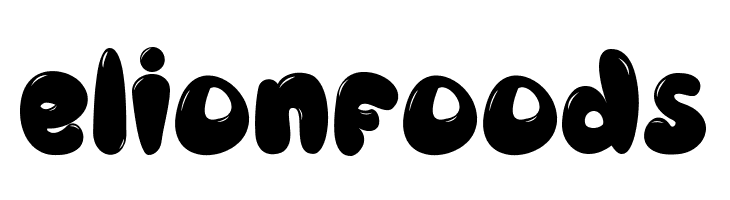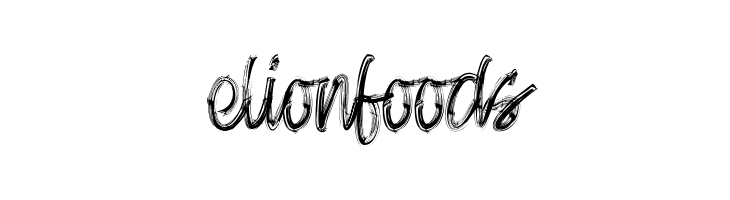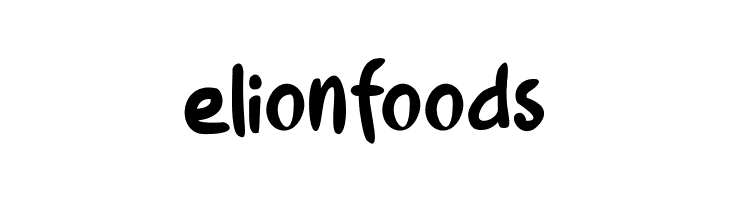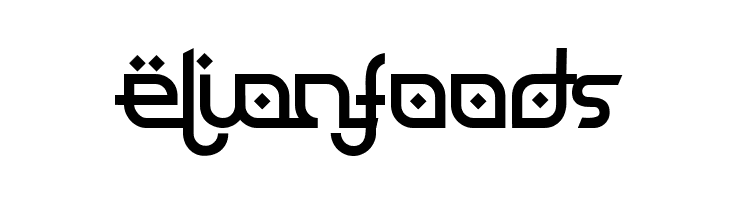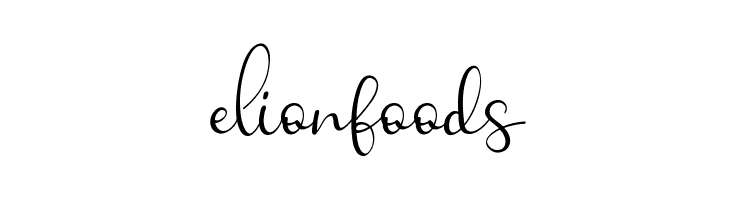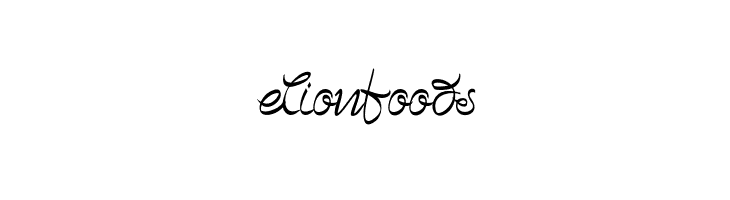
An elegant, flowing script font with intricate loops and swirls.
A whimsical and artistic script font with flowing, interconnected letters.
A playful, bold font with rounded, bubble-like characters.
A bold, playful font with rounded, cartoonish characters and a hand-drawn feel.
A bold, playful typeface with exaggerated curves and a whimsical style.
A playful, stencil-like font with bold, irregular shapes and a modern, artistic style.
A bold, sketch-like font with a dynamic, hand-drawn appearance.
An elegant and sophisticated cursive script font with ornate flourishes.
A bold, playful font with rounded, bubbly characters ideal for creative projects.
A playful, bold handwritten font with rounded, irregular strokes.
A futuristic and geometric font with bold, interconnected lines and intricate details.